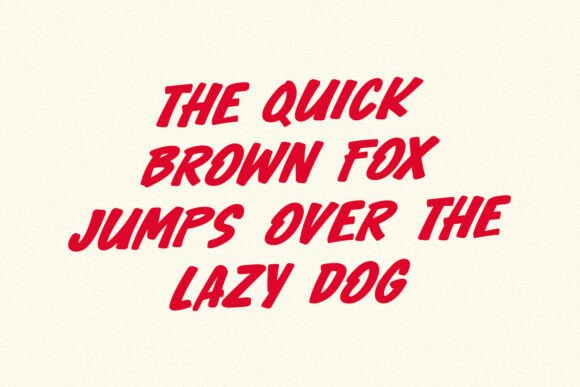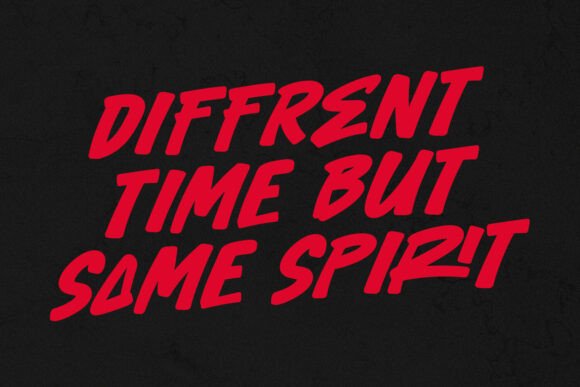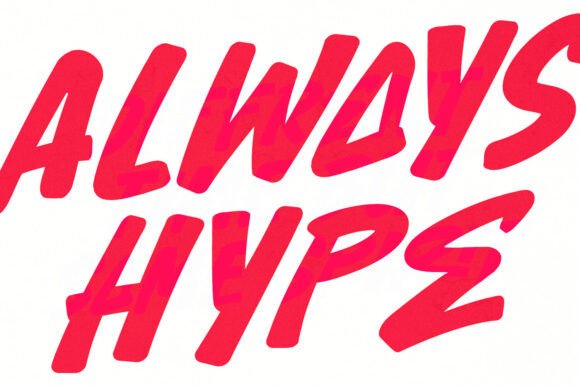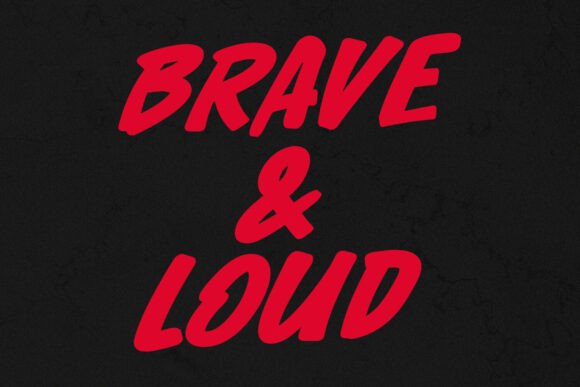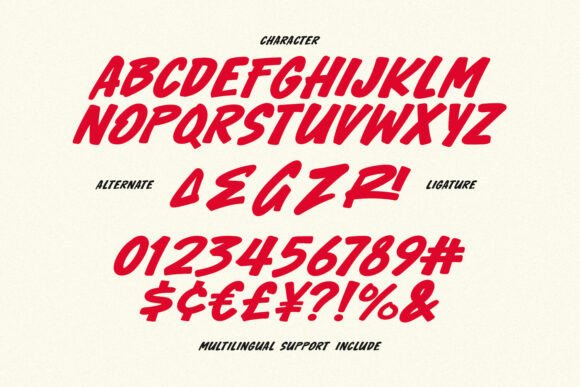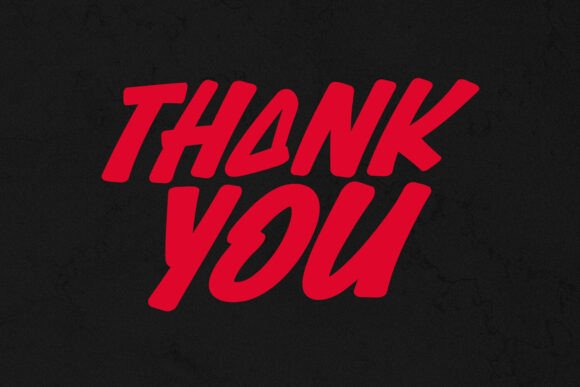
Unleashing the Raw Energy of Street Culture: Introducing Gazev Trip Font
You’ve seen it on the streets, in music festivals, and in urban art galleries – the raw, unbridled energy of street culture that refuses to be tamed. It’s the perfect fusion of graffiti, hand-painted signs, and rebellious attitude that leaves a lasting impression on anyone who experiences it. As designers, we’re always on the lookout for the perfect tool to capture this essence, and that’s where the Gazev Trip Font comes in.
With its thick, confident marker strokes and natural slant, this high-energy display font embodies the very spirit of street culture. It’s a game-changer for designers looking to add a touch of urban grit to their work. From streetwear brands to music event posters, the Gazev Trip Font is an essential tool that will take your designs to the next level.
Gazev Trip Font Key Features
- Font Family: Gazev Trip is a unique, hand-drawn font with a distressed, vintage feel.
- Font Size: Gazev Trip is available in 4 font sizes: Regular (400), Bold (700), Italic (400), and Bold Italic (700).
- Resolution: Optimized for high-resolution displays and prints, with clear and crisp letterforms at resolutions up to 300 DPI.
- Unique Characteristics: Gazev Trip features a distinctive, hand-drawn style with subtle texture and imperfections, giving it a one-of-a-kind look.
Gazev Trip Font Review
I recently had the chance to work with the Gazev Trip font, and I must say it’s been an interesting experience. Here are my thoughts on what works well and what could be improved.
- The font’s unique, hand-drawn feel gives it a lot of character and makes it stand out from more traditional fonts.
- The font is highly customizable, with a wide range of styles and sizes available.
- It’s a great choice for creative projects, such as art books, magazines, or posters.
- The font can be difficult to read at smaller sizes, which may be a problem for web design or small print applications.
- The font’s irregular shape and varied line widths can make it challenging to use in conjunction with other fonts or design elements.
- The font may not be suitable for use in formal or corporate settings, due to its informal and playful feel.
The Gazev Trip font is a great choice for designers who want to add some personality and flair to their projects. While it may have some limitations, its unique character and high level of customization make it a valuable addition to any design toolkit. With careful planning and consideration, it’s definitely worth considering for the right project.
Tips: Use Gazev Trip Font for titles and headings to add a unique touch to your designs.
Tips: Use Gazev Trip Font for creative typography projects, such as posters or social media graphics.
Tips: Use Gazev Trip Font for presentations or documents that require a unique and eye-catching font.
Gazev Trip Font is ideal for:
1. Creative typography projects.
2. Social media graphics.
3. Posters and flyers.
4. Presentations and documents.
Alternatives to Gazev Trip Font
Great Vibes is a modern, cursive script font ideal for titles and headings. It features a playful, yet elegant design that works well for various design projects. Great Vibes is a great alternative to Gazev Trip Font for designers who want a more refined and sophisticated look.
Comparison: While Gazev Trip Font has a more distressed and vintage feel, Great Vibes is more polished and contemporary. Great Vibes is better suited for designs that require a more subtle and elegant approach.
Carolyna Pro is a beautiful, elegant script font perfect for branding and packaging designs. It features a flowing, cursive design that works well for titles, headings, and body text. Carolyna Pro is a great alternative to Gazev Trip Font for designers who want a more sophisticated and refined look.
Comparison: While Gazev Trip Font has a more casual and laid-back feel, Carolyna Pro is more formal and elegant. Carolyna Pro is better suited for designs that require a more luxurious and high-end approach.
Q: What is the recommended font size for optimal readability with the Gazev Trip Font?
The recommended font size for optimal readability with the Gazev Trip Font is between 12-24 points. However, this may vary depending on the specific design application and intended use.
Q: Does the Gazev Trip Font support Unicode characters?
Yes, the Gazev Trip Font supports a wide range of Unicode characters, including Latin, Cyrillic, and Greek alphabets. This allows for flexibility in designing multilingual content.